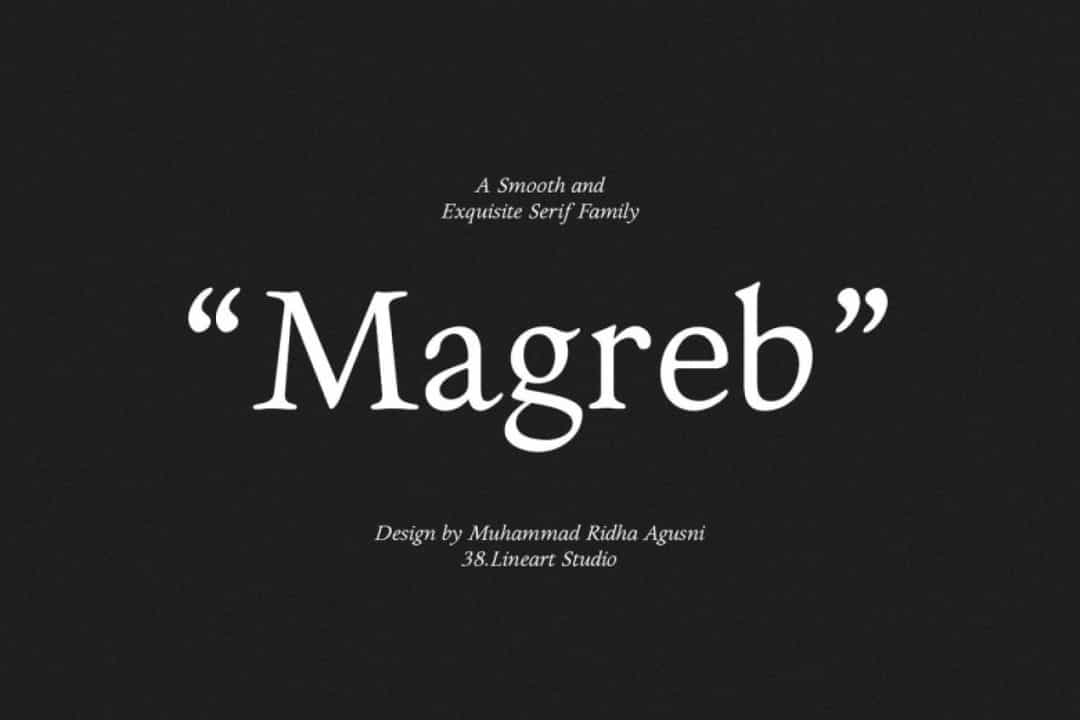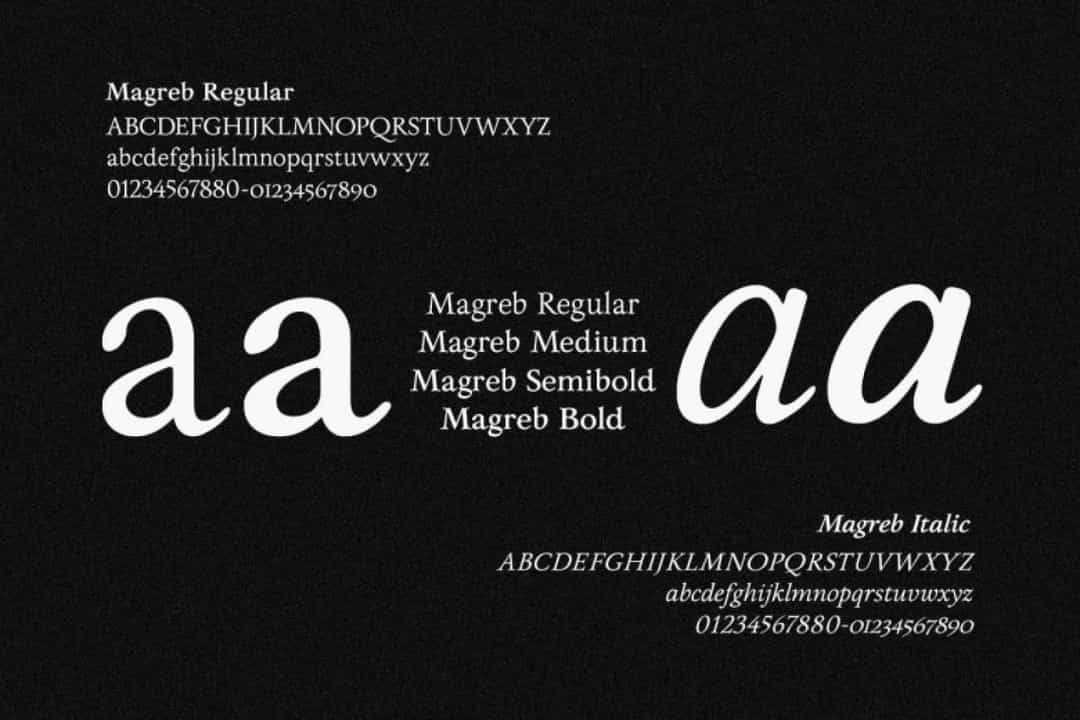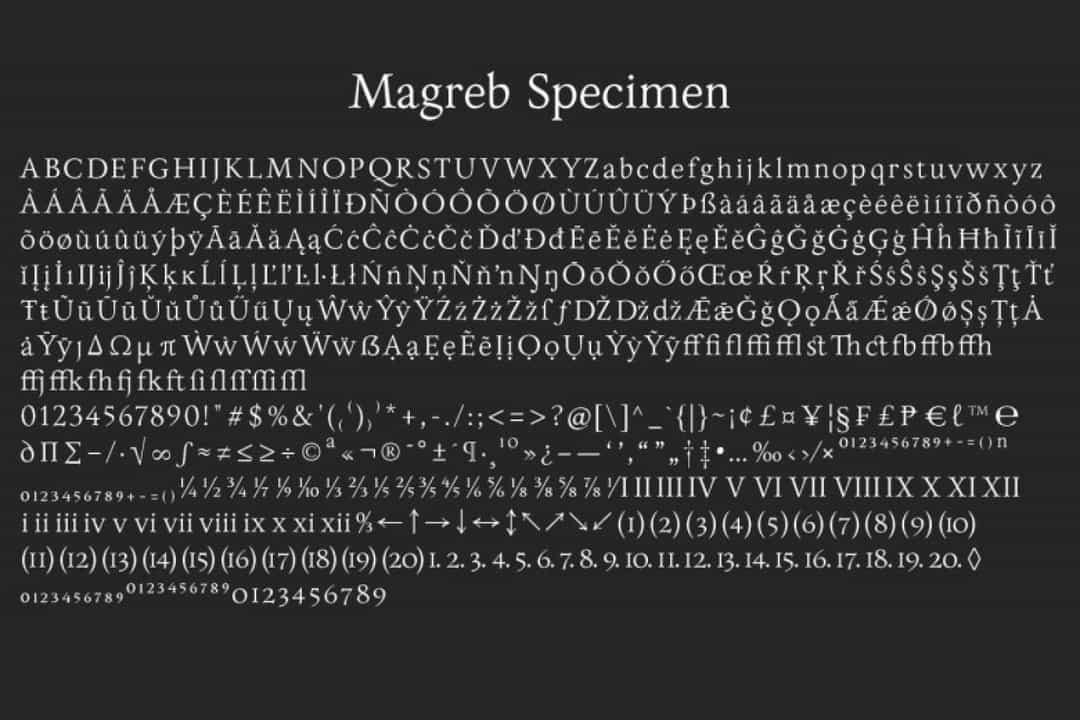
Magreb is an elegant serif typeface inspired by Garamond and Venetian Serif styles, emphasizing elegance and softness with its combination of weights and italics to combine history with modernity in one timeless composition.